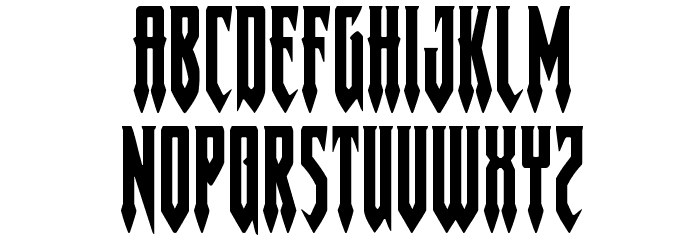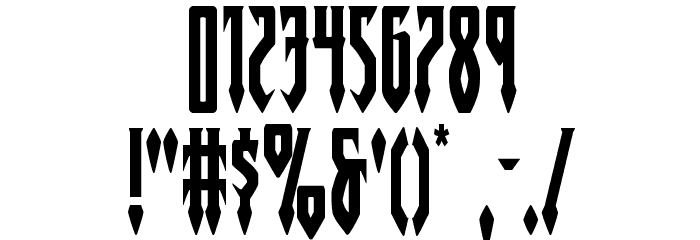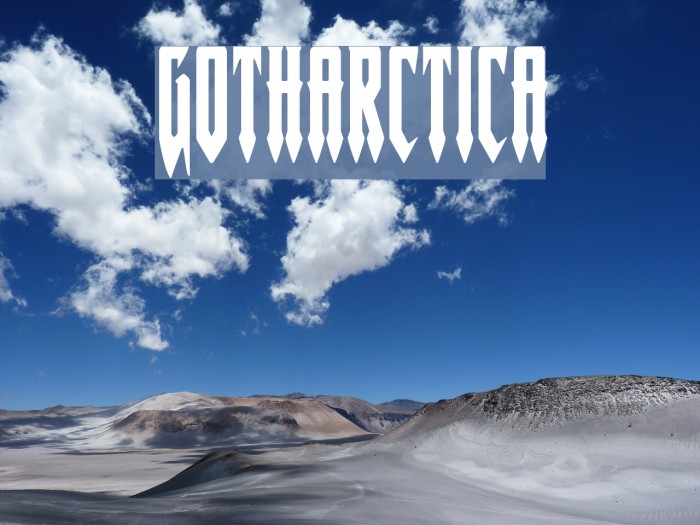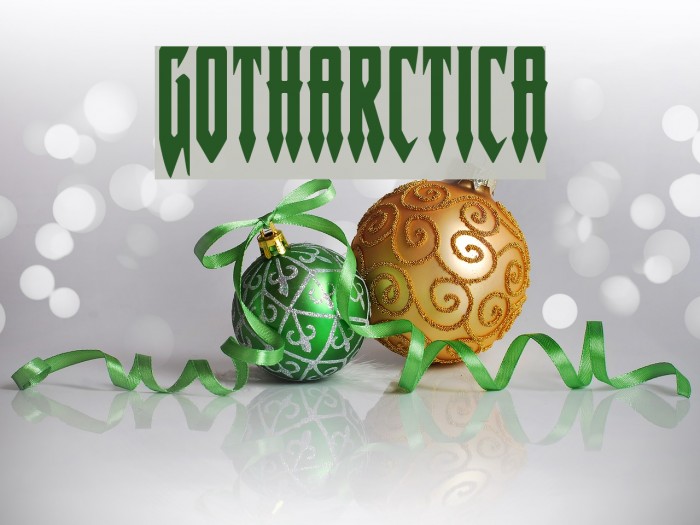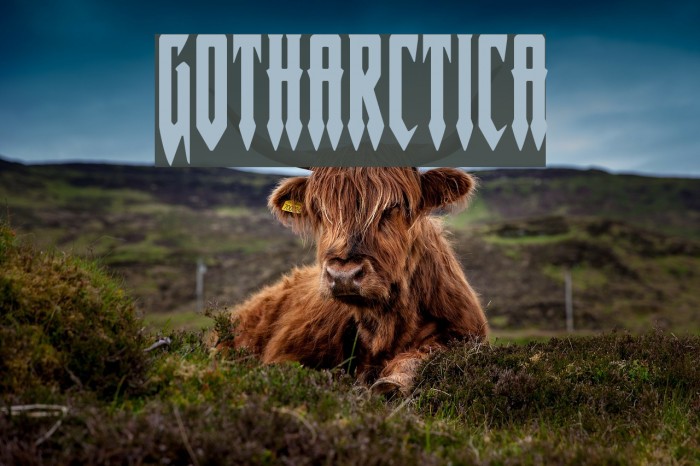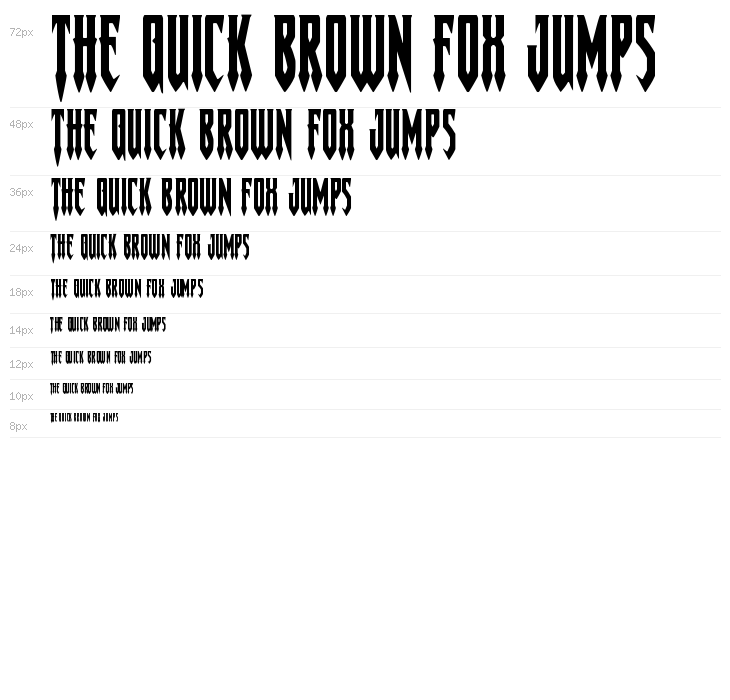
Gotharctica Font
This font features a bold and striking design with sharp, angular edges and a gothic-inspired aesthetic. The characters are tall and narrow, creating a dramatic and imposing presence. The uppercase and lowercase letters maintain a consistent style, with each character exhibiting a unique blend of pointed and straight lines. The numbers and special characters follow the same design principles, ensuring a cohesive look across all elements. This font's distinct style makes it suitable for projects that require a strong visual impact.
A bold, gothic-inspired font with sharp, angular edges and a dramatic presence.
- Proposed Projects: Ideal for album covers, posters, branding for edgy or alternative products, and any project needing a bold, gothic touch.
- Character Spacing: Tight
- Overall Style: Gothic, Decorative